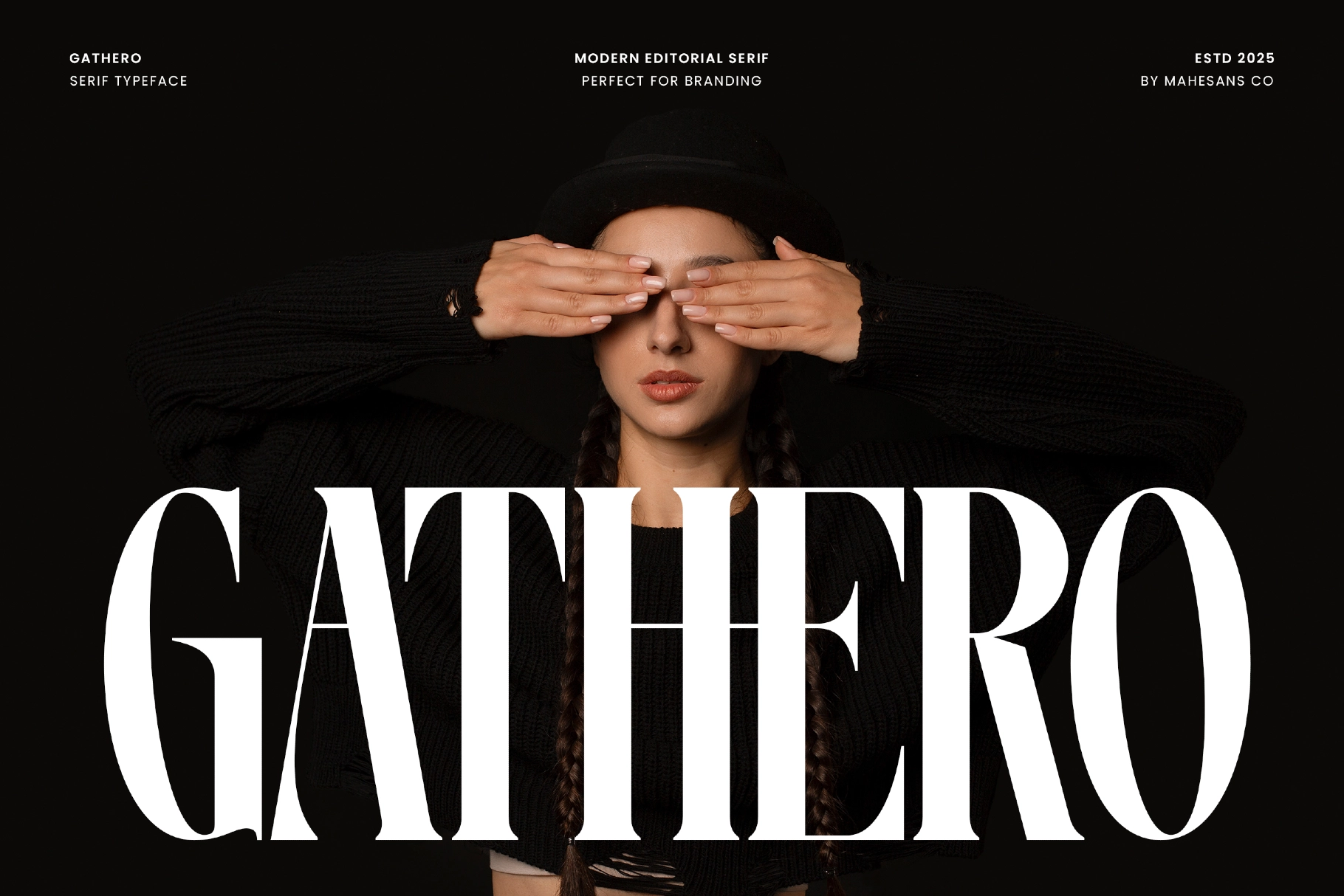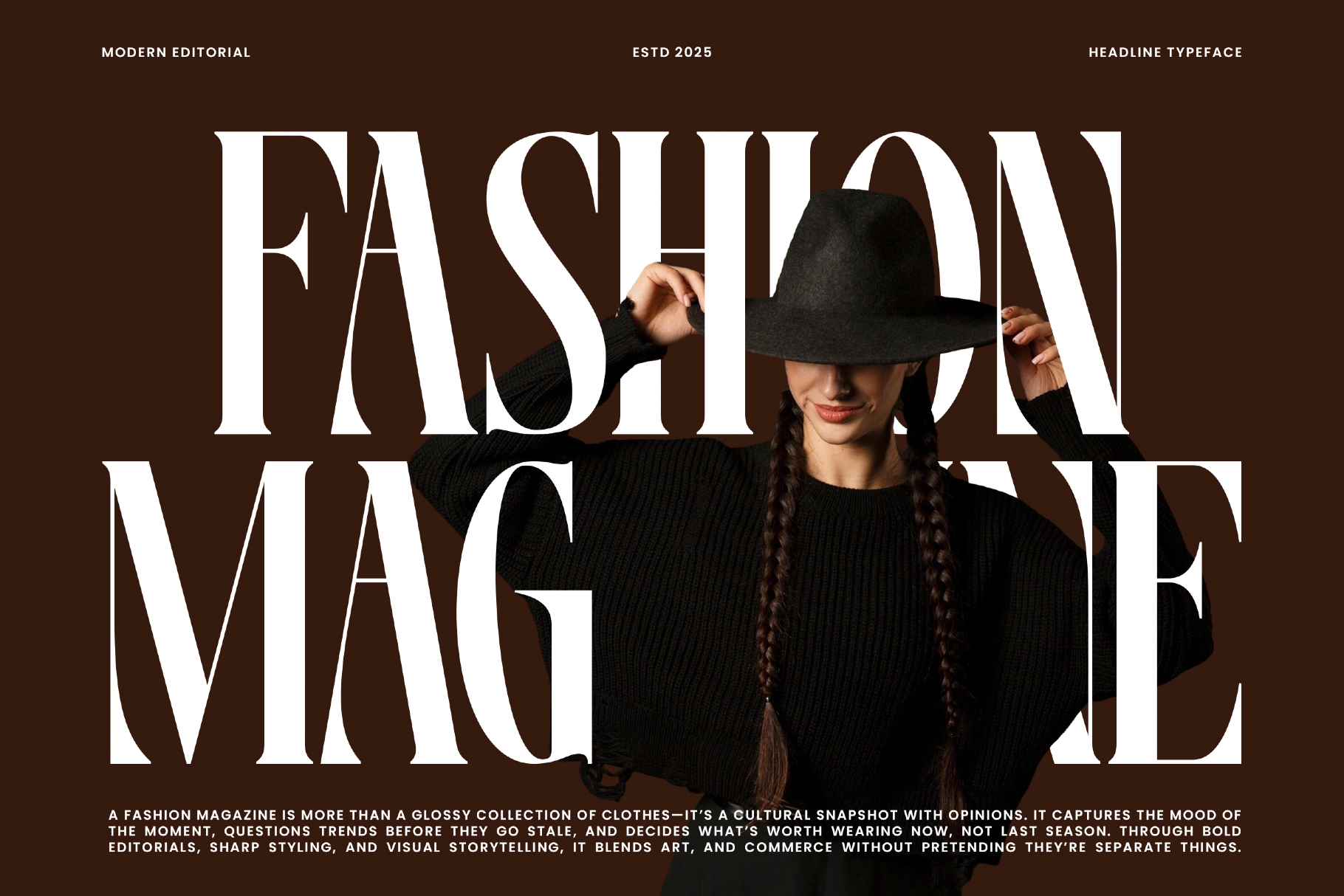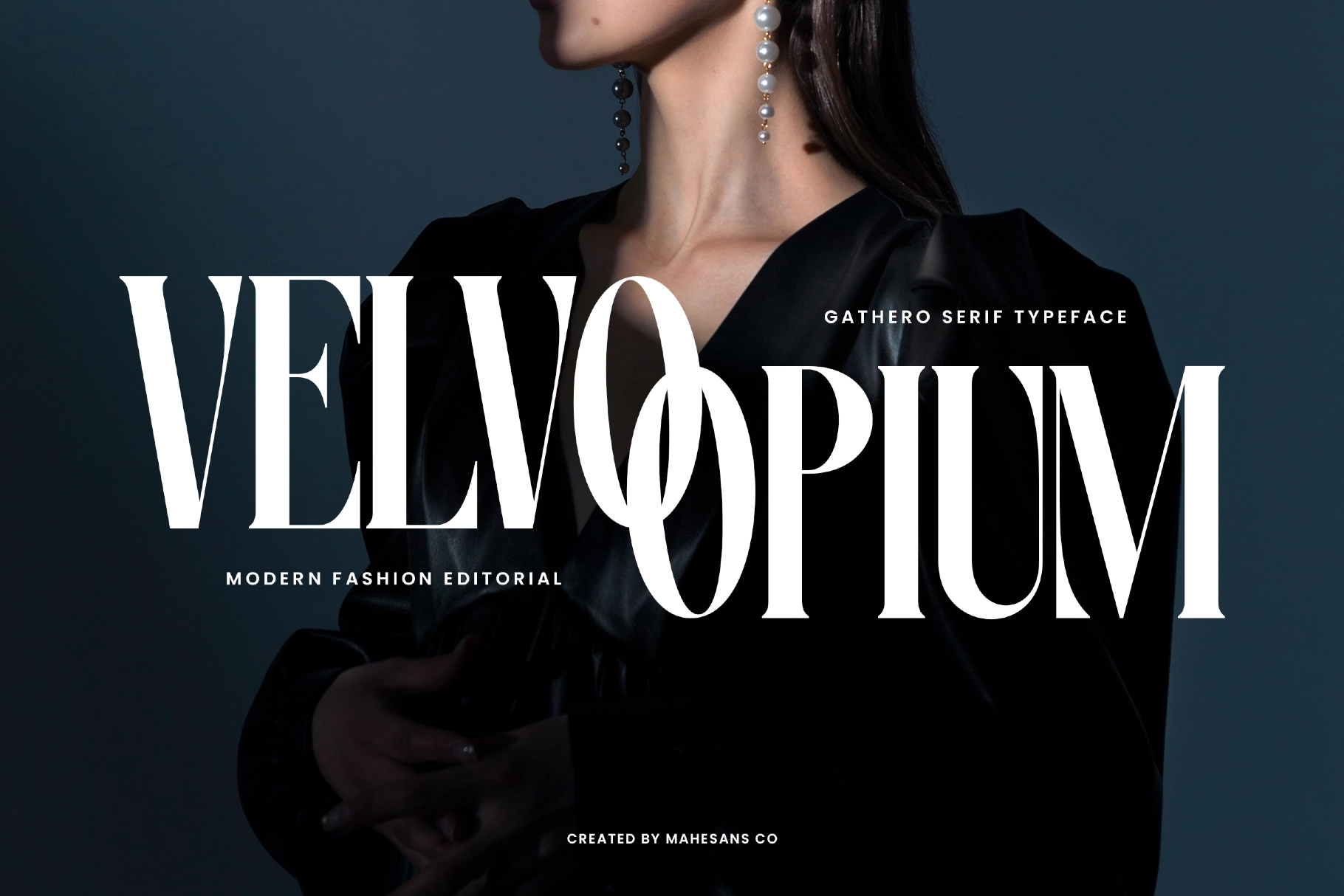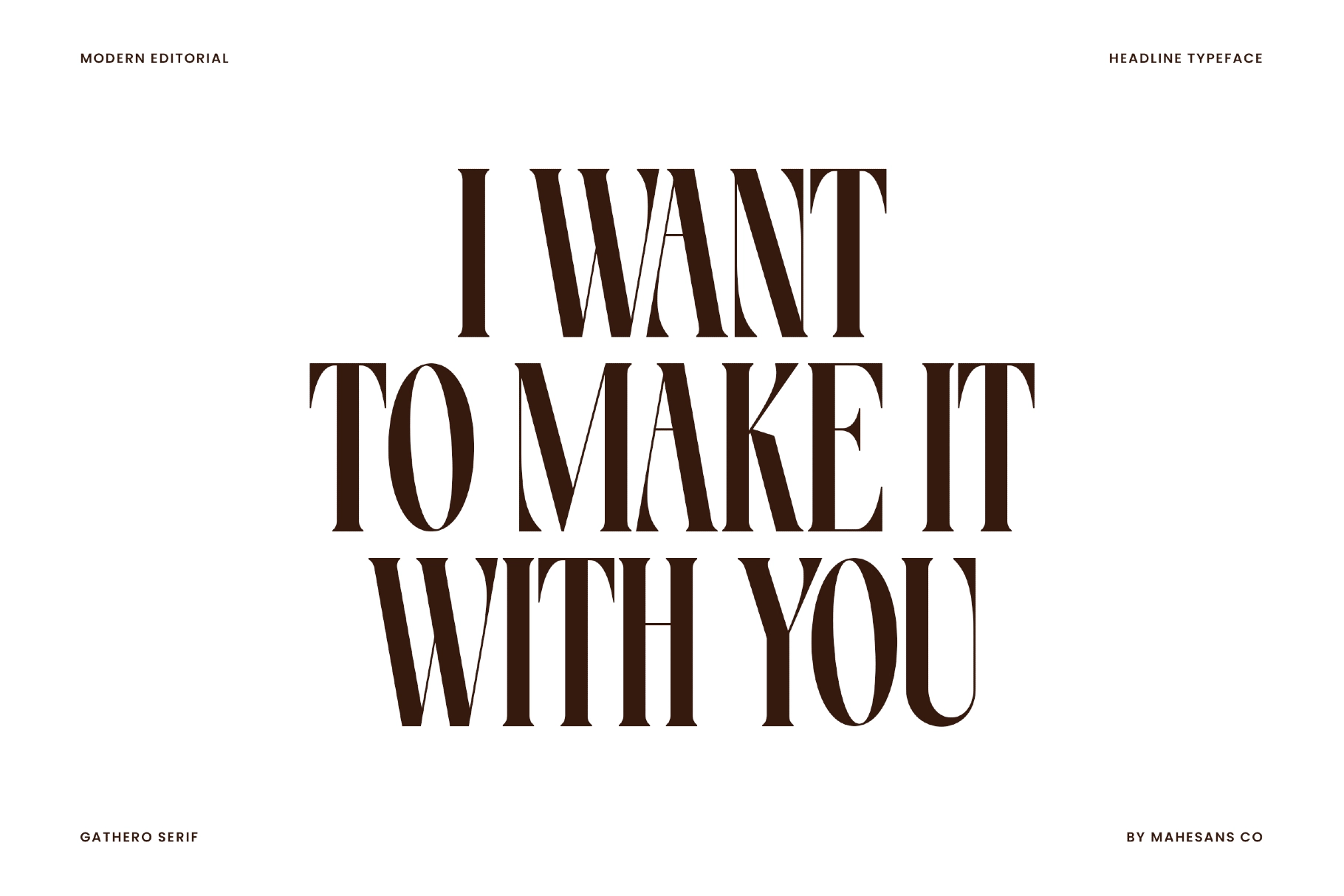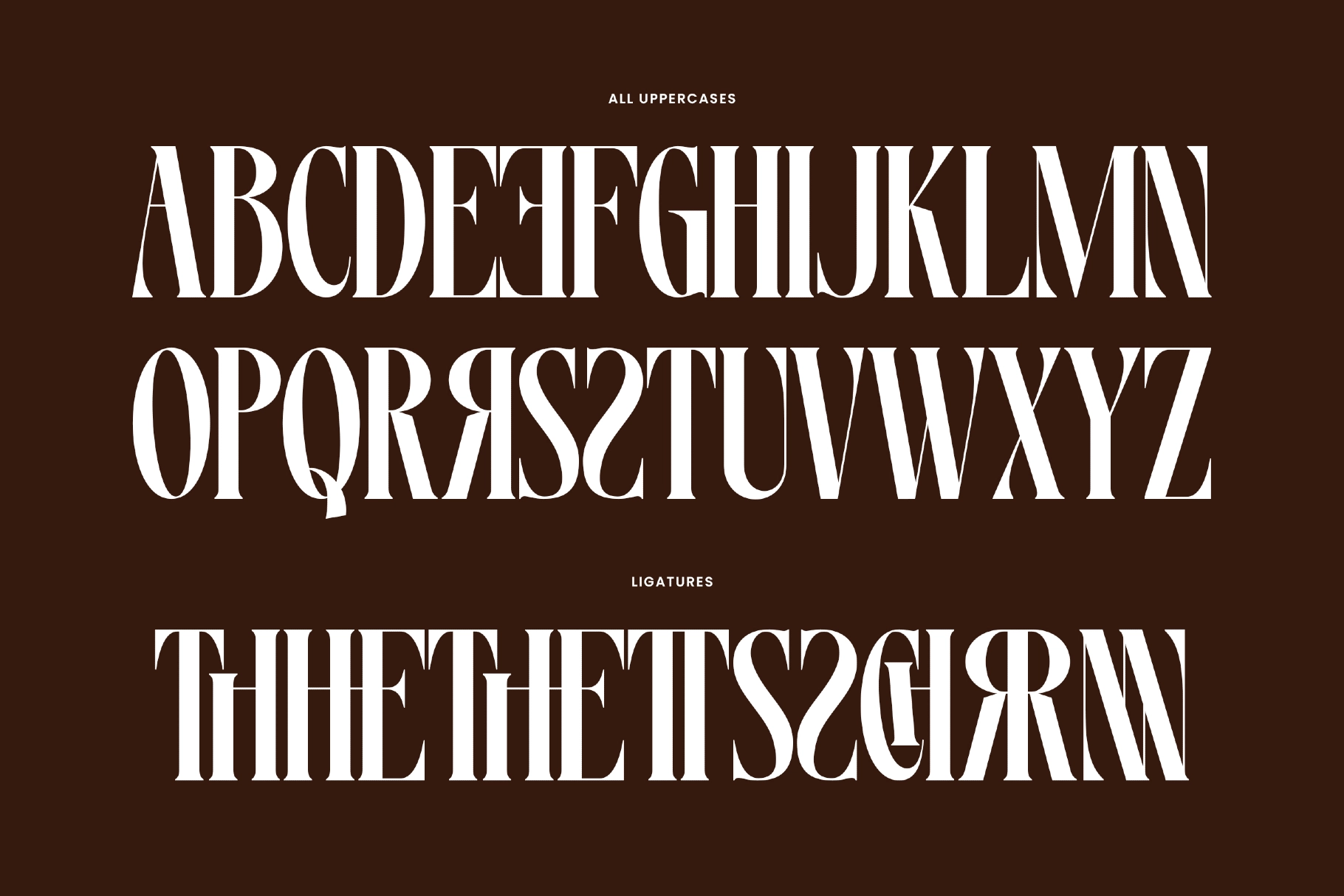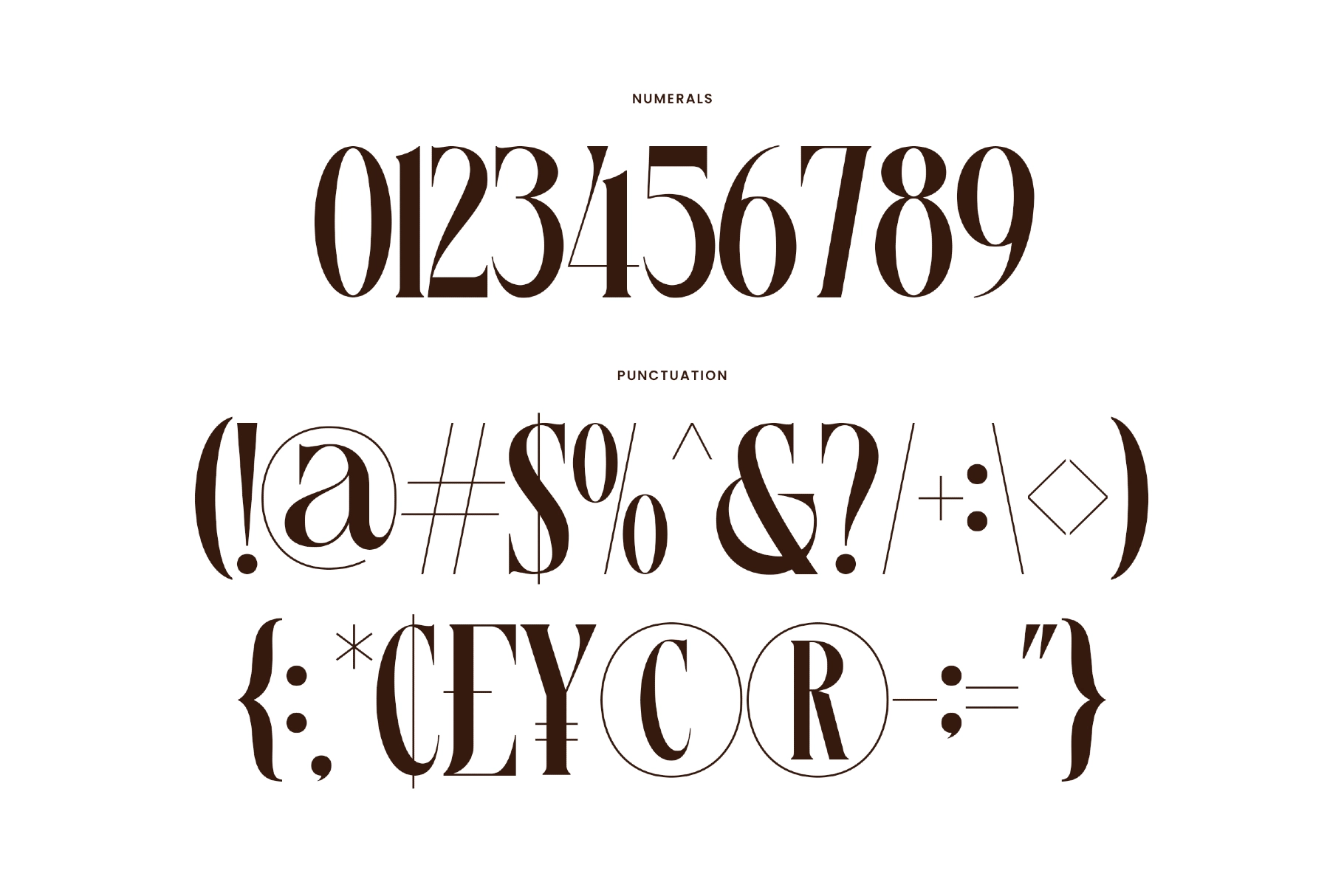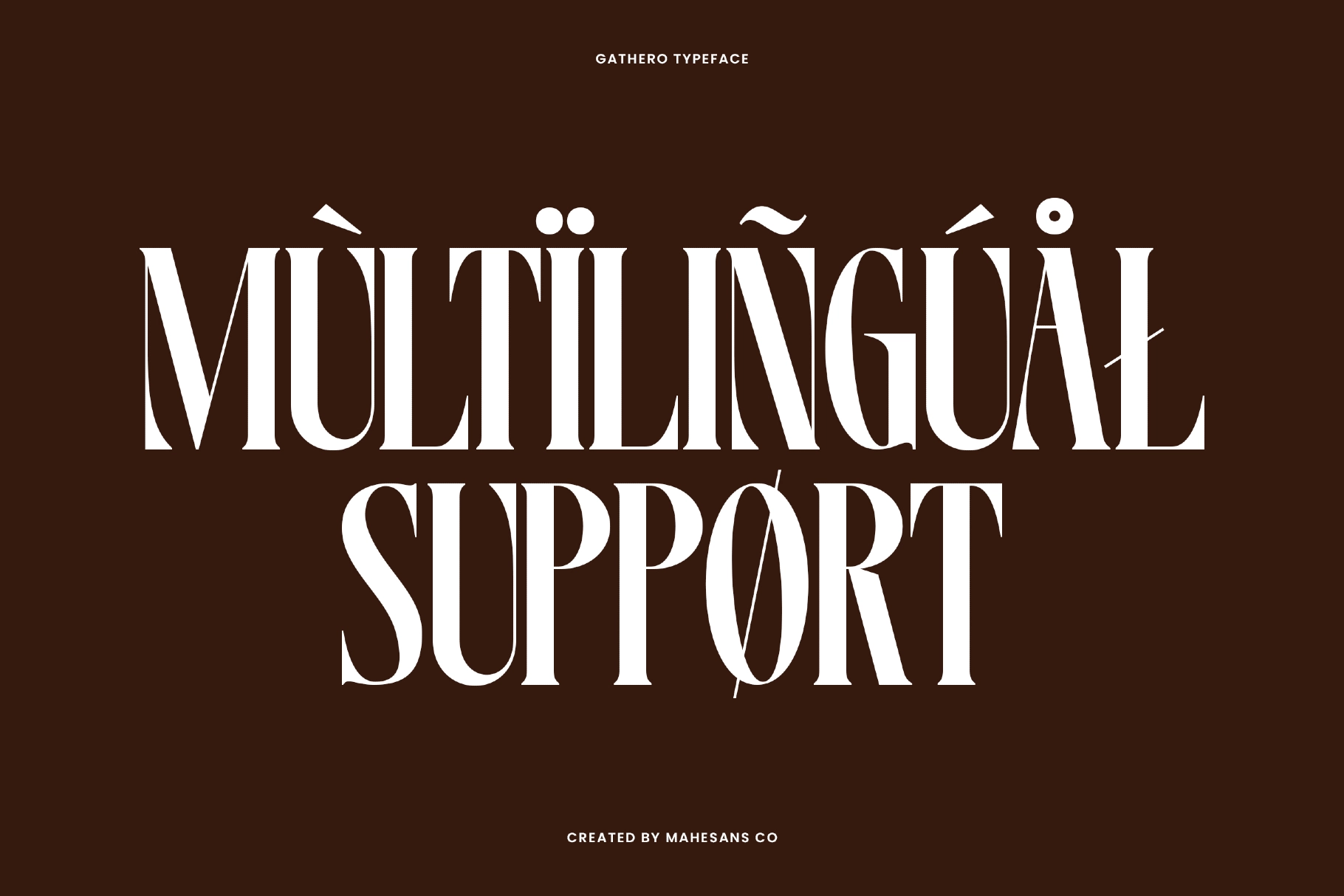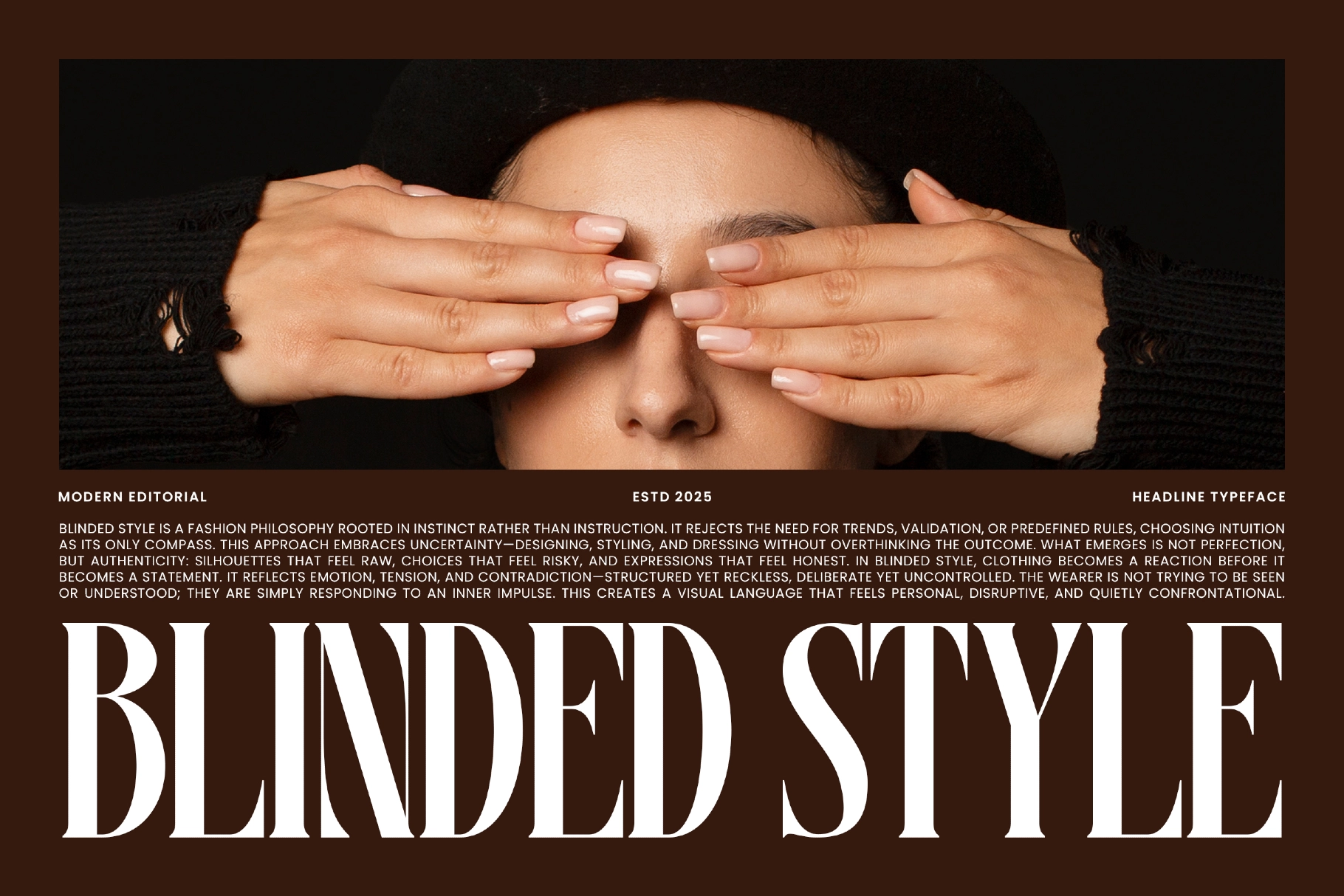
Gathero – Luxury Display Serif Font
This elegant serif typeface is tall, dramatic, and sharply cut for editorial headlines with real presence. High contrast strokes, sculpted curves, and expressive uppercase forms give it a luxury fashion character — polished, assertive, and allergic to blending in.
Gathero works beautifully for fashion magazine covers, luxury branding, beauty campaigns, poster titles, boutique identities, perfume packaging, gallery invitations, editorial layouts, premium product labels, art books, social media headlines, and more. Ligatures and alternates add distinctive typographic moments, while multilingual support keeps the style ready for broader creative use.
• All Uppercase
• Numerals & Punctuation
• Alternates & Ligatures
• Multilanguage support